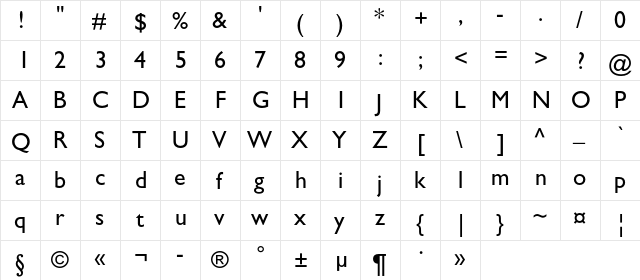
GalsC Regular
Design Context for GalsC Typeface
GalsC is a composed and adaptable typeface that performs quietly and consistently across a wide range of design contexts.